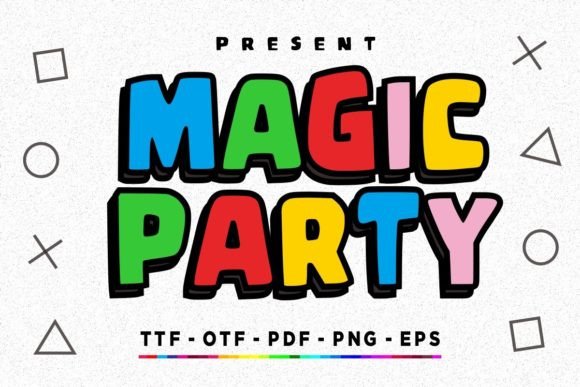
Journey into a world of cheerful typography with Magic Party Font, the vibrant and expressive font collection designed to ignite your imagination and elevate your creative projects. This playful display font boasts a captivating fusion of colors and shapes, instantly grabbing attention and evoking a sense of pure joy.
Unleash your inner child and embrace the enchanting charm of Magic Party Font. Its bold, chunky letters dance across the screen, captivating the eyes and leaving a lasting impression. Whether you're crafting personalized invitations, greeting cards, or eye-catching social media posts, this font adds a touch of whimsy and cheer to every design.
Let Magic Party Font transport you to a world of boundless creativity. Whether you're a seasoned designer or just starting, this font is your perfect companion, ready to bring your vision to life. Its versatility knows no bounds, effortlessly adapting to a myriad of projects, from enchanting logos and playful flyers to captivating presentations and engaging website designs.
With Magic Party Font, the possibilities are as limitless as your imagination. Dive into the vibrant spectrum of colors and discover the endless ways to express yourself. This font is not just a collection of letters; it's an invitation to embark on a creative adventure, spreading joy and delight wherever it goes.
Don't settle for ordinary fonts that blend into the background. Choose Magic Party Font, the extraordinary font that commands attention and sparks conversations. It's the perfect choice for those who dare to be different, those who seek to make a statement with their designs.